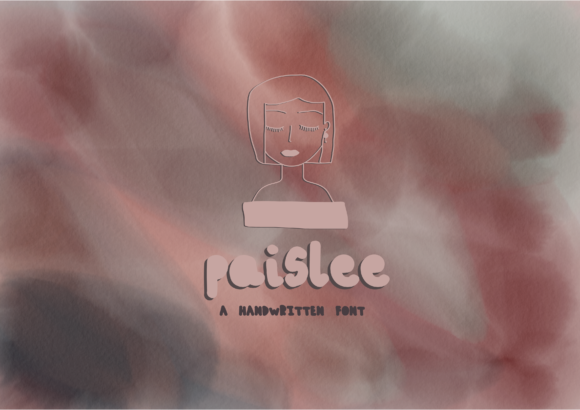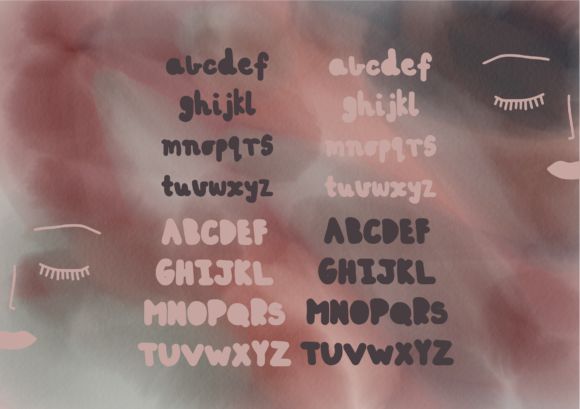
Paislee Font
About Paislee Font
THe Paislee is an adorable font, perfect for cute note taking, design projects and more! This unique font includes amazing characters and looks fabulous when layered.